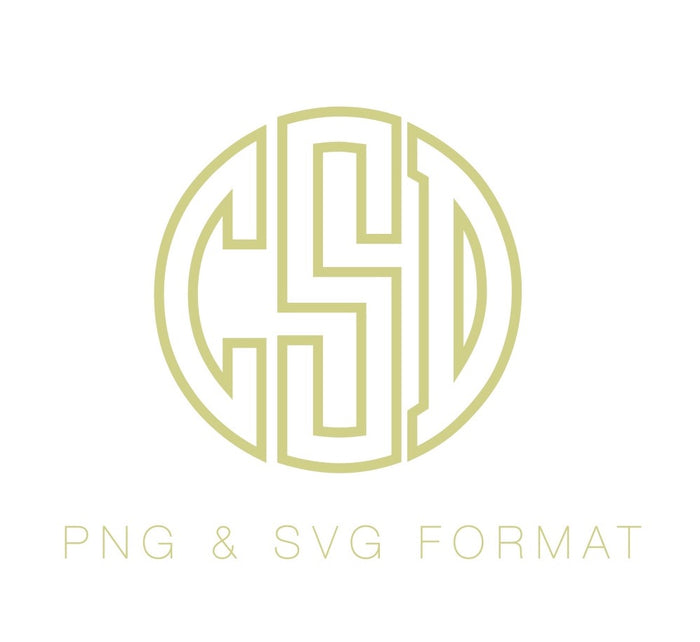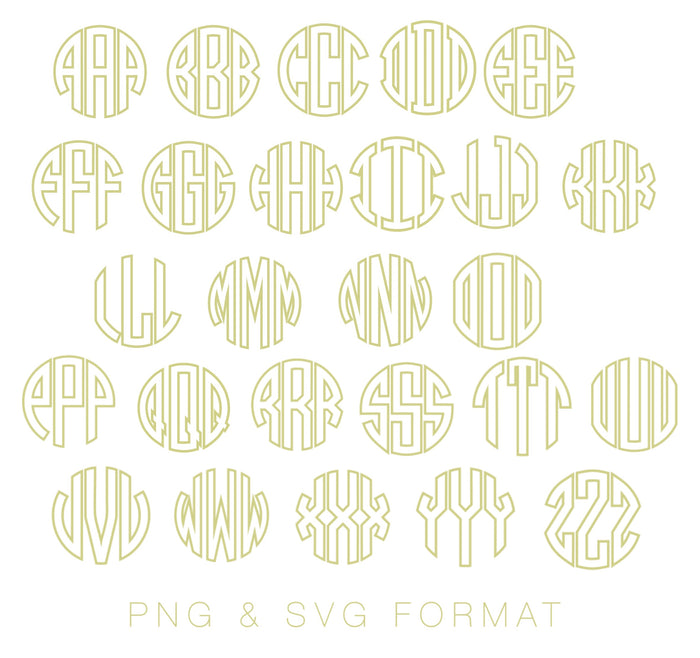
Open Circle PNG SVG Monogram Font
The Hollow Circle PNG SVG Monogram Font is an open Circle Monogram including 78 letters to create a monogram as shown in the first image.